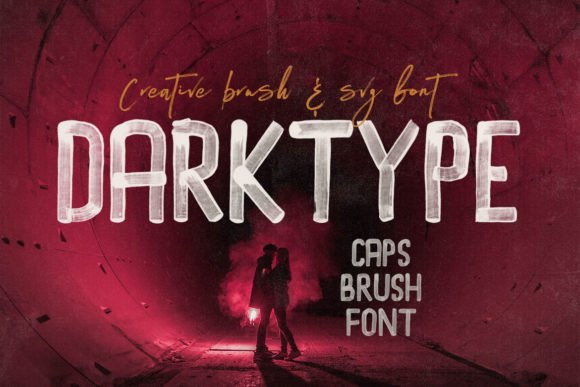
Introducing DarkType Font, the ultimate choice for those seeking the best font for display ads. Crafted by the talented team at JumboDesign, this artistic and captivating brush script font is a must-have for anyone looking to create stunning and modern designs.
With its unique blend of subtle curves, artistic flair, and delicate strokes, DarkType Font brings a whole new level of creativity to your projects. Whether you're designing eye-catching banners, captivating social media graphics, or engaging website headers, this font will make your creations truly stand out from the crowd.
When it comes to marketing your products or services, first impressions are everything. DarkType Font ensures that your display ads make a powerful impact on potential customers. Its bold and attention-grabbing appearance effortlessly captures attention and leaves a lasting impression, making it the perfect choice for businesses looking to make a statement.
But DarkType Font isn't just about aesthetics; it also delivers functionality. Each character is meticulously designed to ensure legibility, even at smaller sizes. This means that your message will always be clear and easy to read, enhancing the overall user experience and driving engagement.
Don't settle for ordinary fonts that fail to captivate and inspire. With DarkType Font, you have the power to create extraordinary designs that leave a lasting impression. Elevate your brand, enhance your marketing efforts, and unleash your creativity with this one-of-a-kind display font.